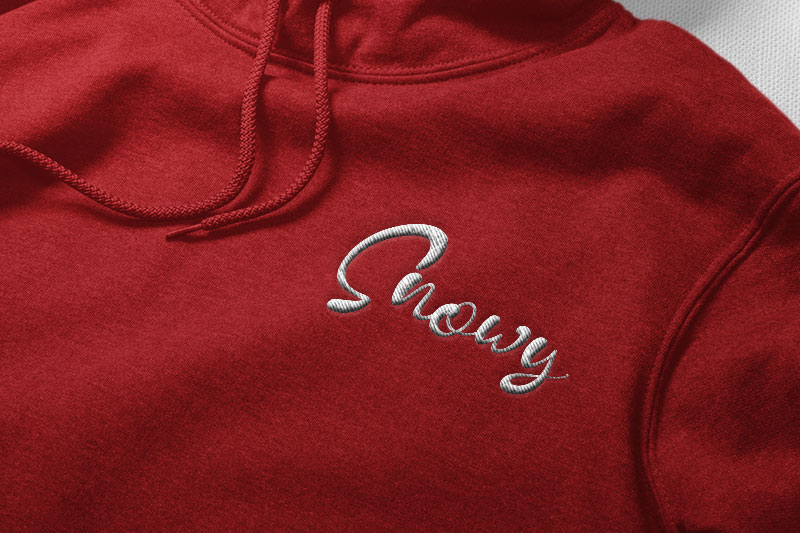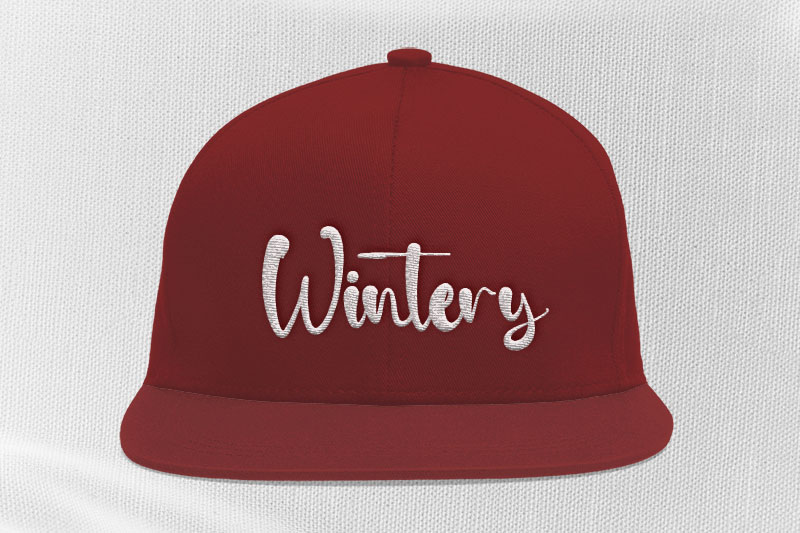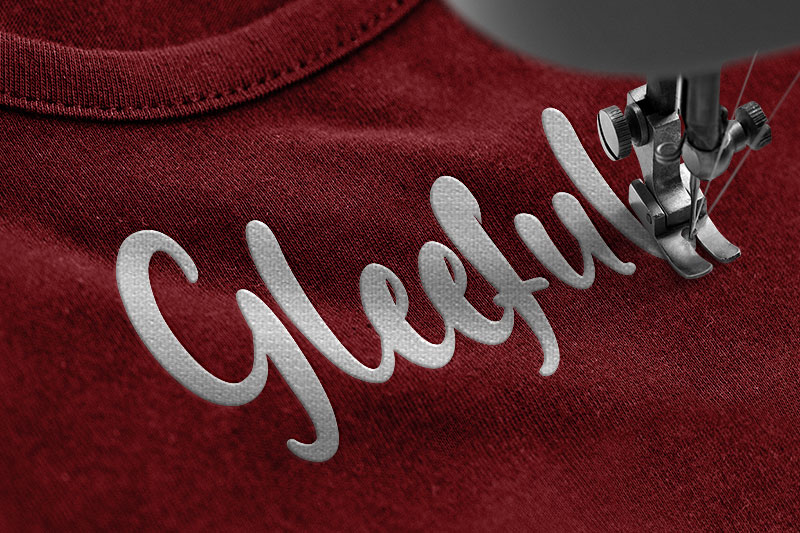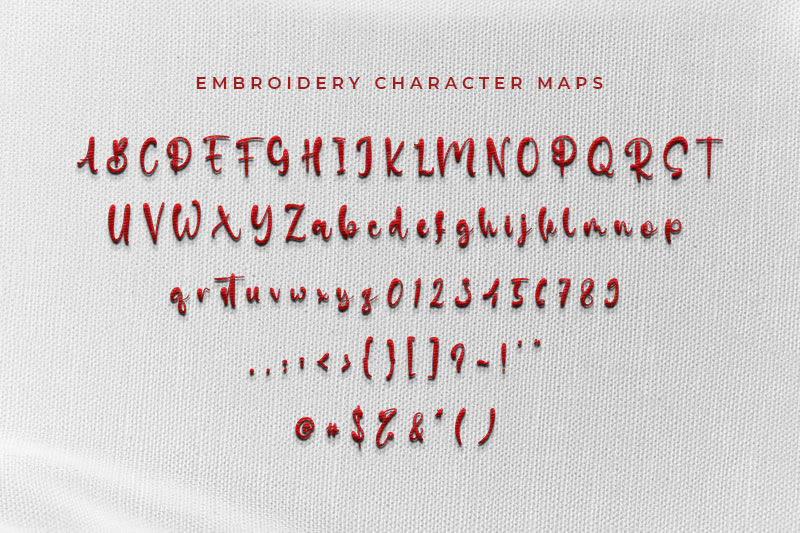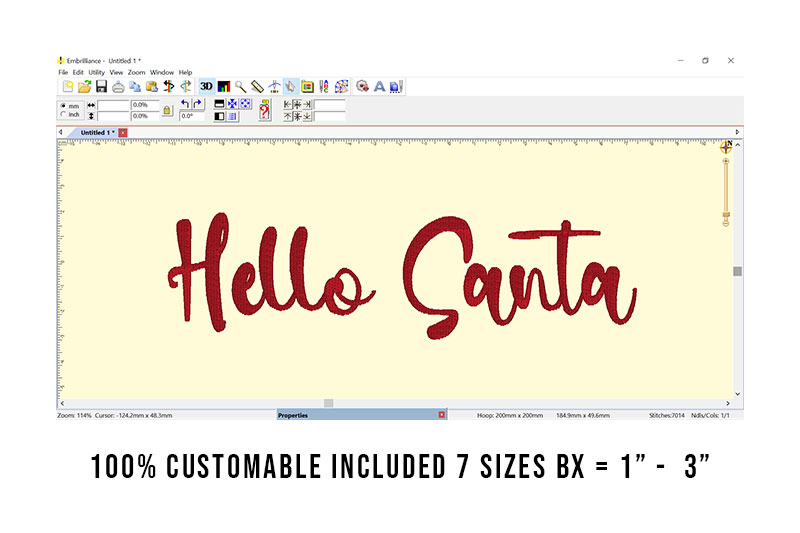
Hello Santa Embroidery Font is a new creation that is made as attractive as possible by adding variations of the embroidery font. This font is here to provide another reference for those who are interested in using embroidery fonts to celebrate Christmas this year. Hello Santa Embroidery Font has a simple, elegant, and unique font characteristic with no excessive additions to all letters. The shape is medium and has a small curve at some ends. This font is classified with moderate readability. The appearance of this font is perfect when embroidered with narrow embroidery.
Hello Santa Embroidery Font is one of the best fonts to use for Christmas celebration supplies. This font creates the warm and pleasant feel of the product it features. This font can be folded into hoodies, Christmas t-shirts, and hats. Hello Santa Embroidery Font can be used for Christmas decorations hanging on the Christmas tree. In addition, this font can also be bordered by hand-stitched objects, such as tablecloths and home wall hangings.